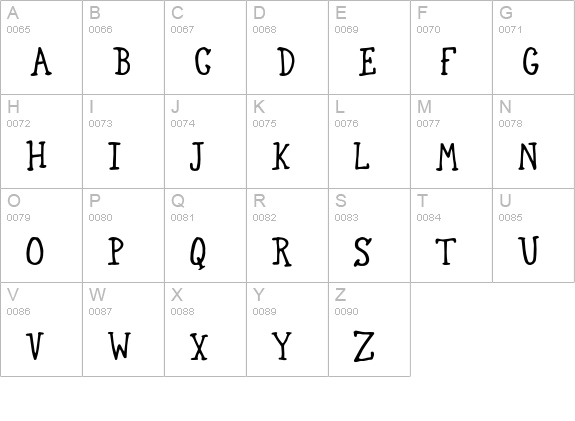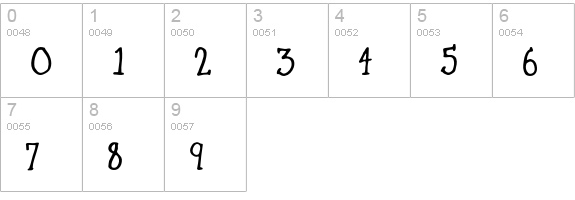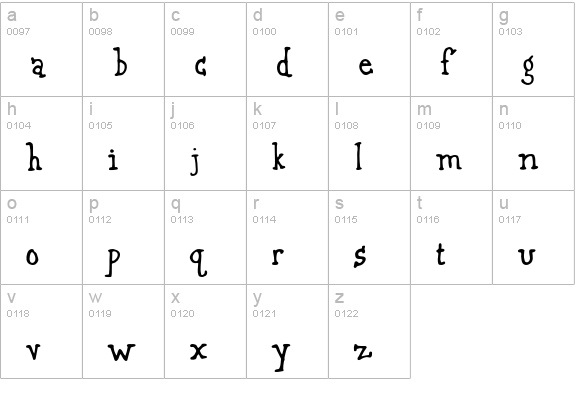
Gurnsey20 Font Details
Gurnsey20 font is a beautifully crafted typeface that exudes elegance and sophistication. With its distinctive and eye-catching letterforms, this font is perfect for adding a touch of class to any design project. The sleek lines and graceful curves of Gurnsey20 font make it a versatile choice for a wide range of applications, from branding to packaging to editorial design. One of the best things about Gurnsey20 font is that it is completely free to download. You can easily access this stunning typeface at FontsMarket.com, where you can download it and start using it in your projects right away. Whether you're working on a personal project or a client's design, Gurnsey20 font is sure to make a lasting impression with its timeless appeal. Elevate your designs with Gurnsey20 font and watch them come to life with style and sophistication.